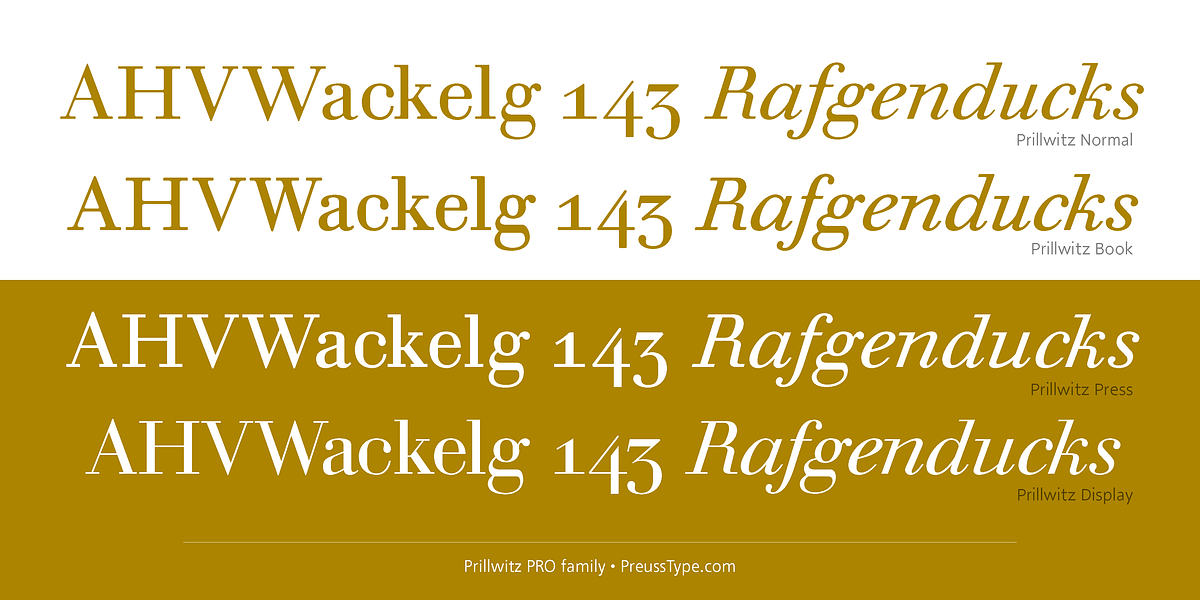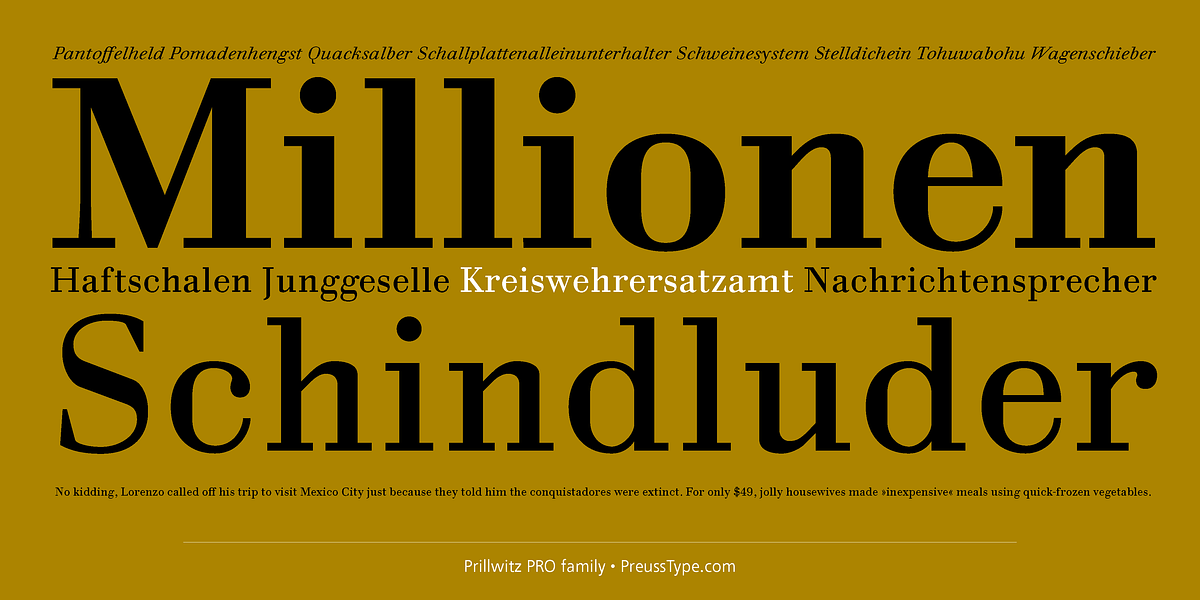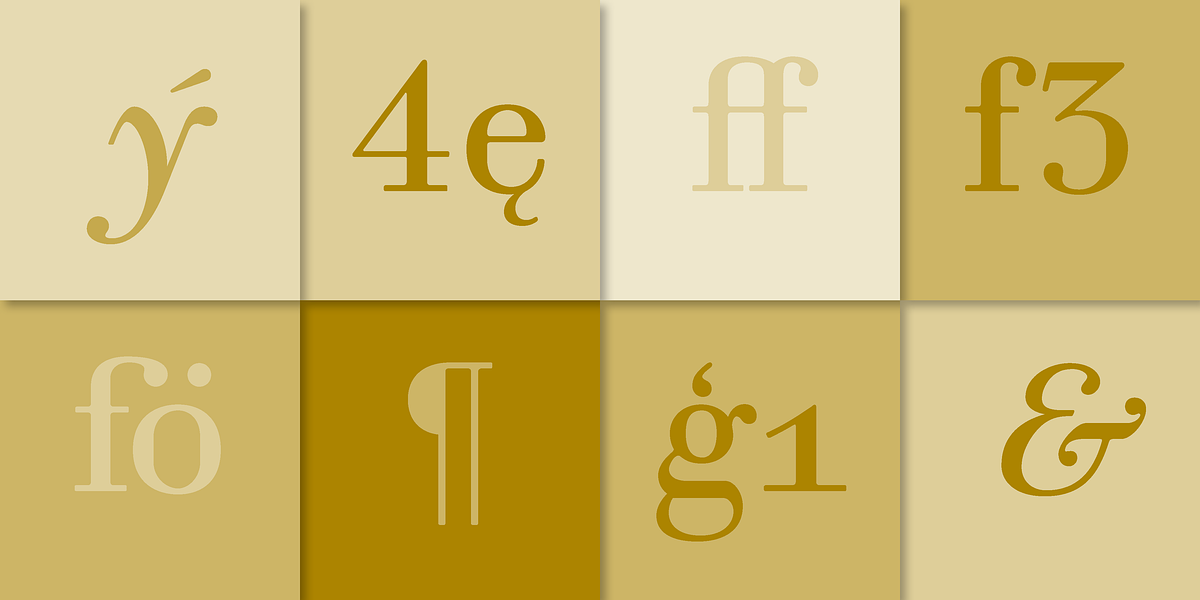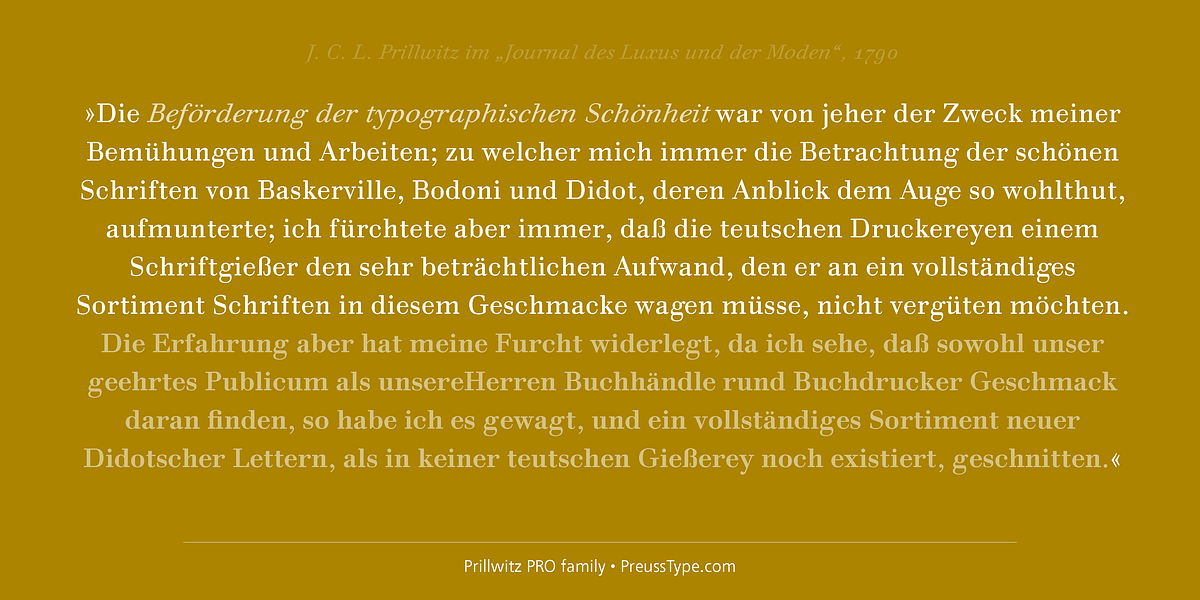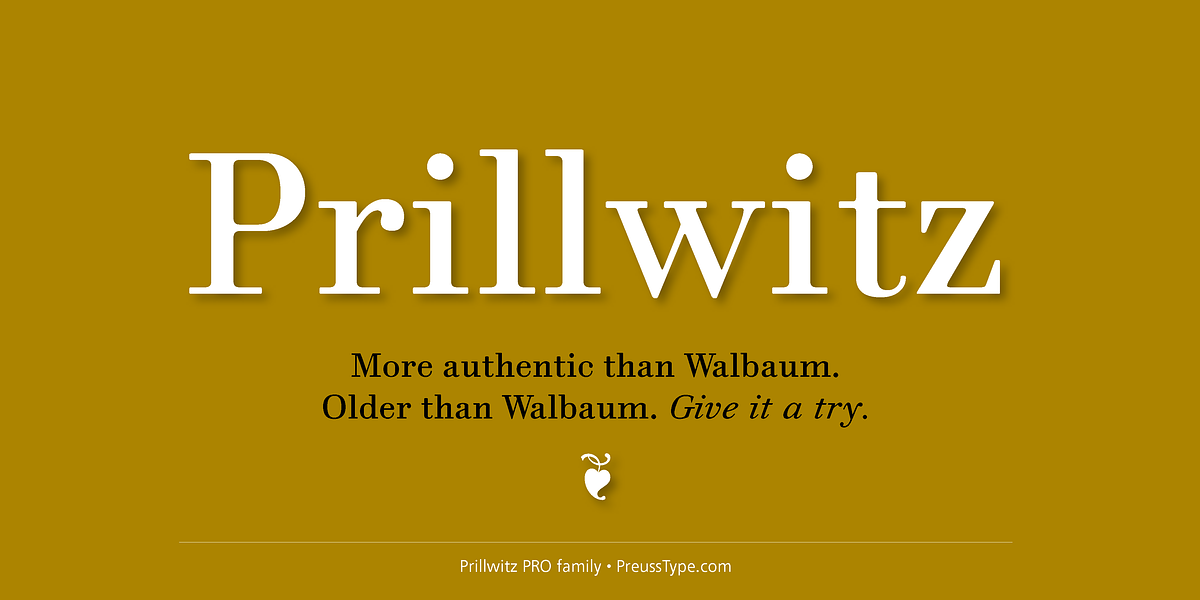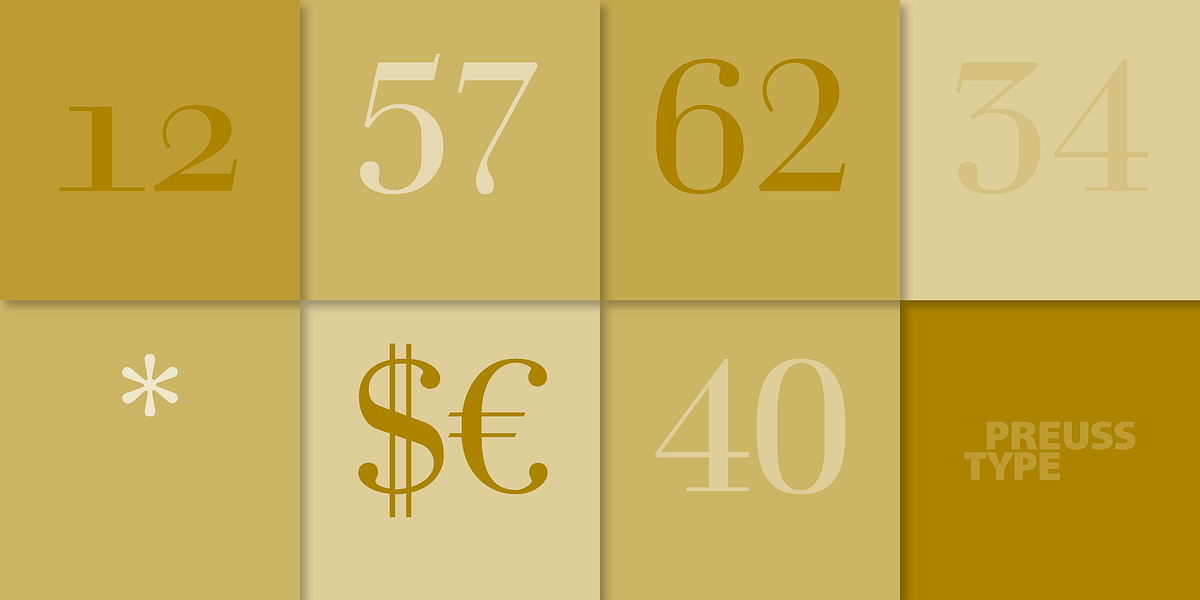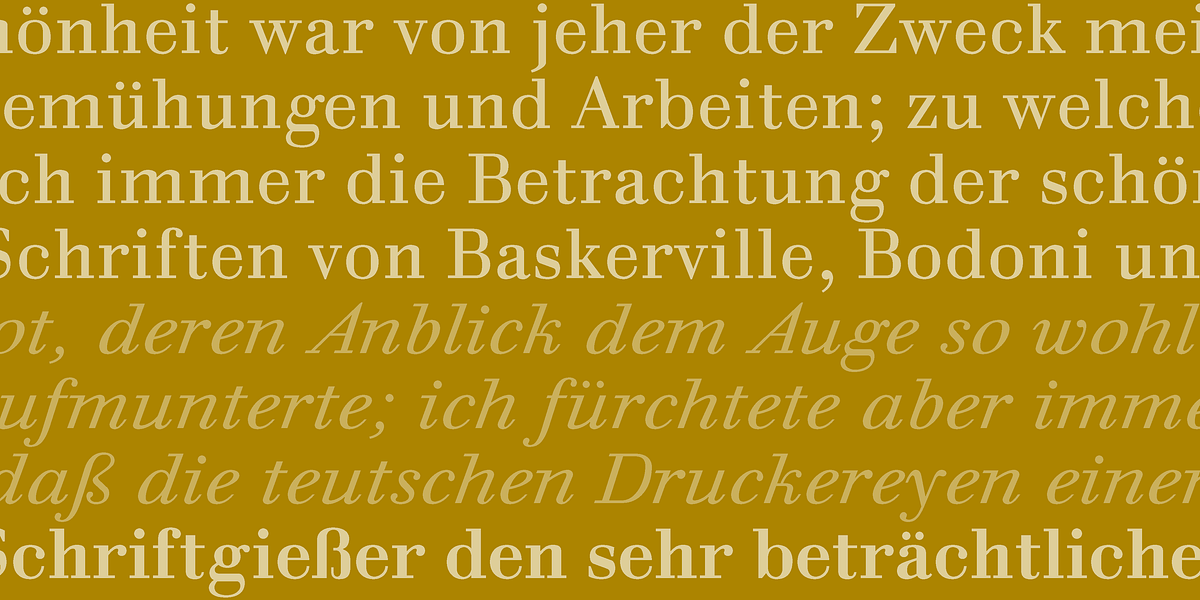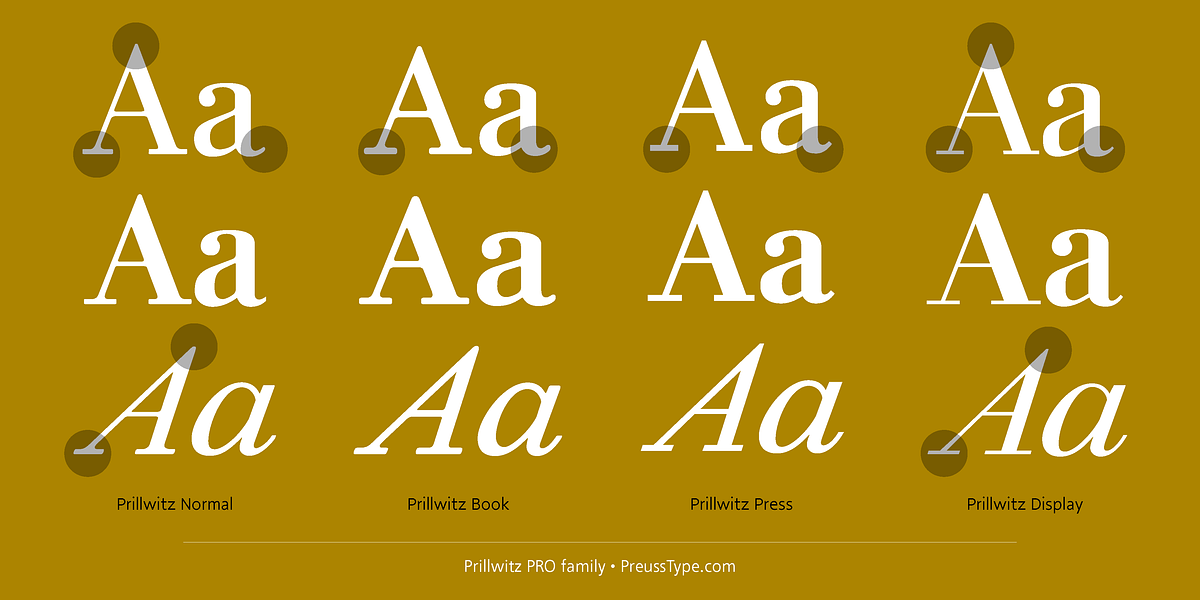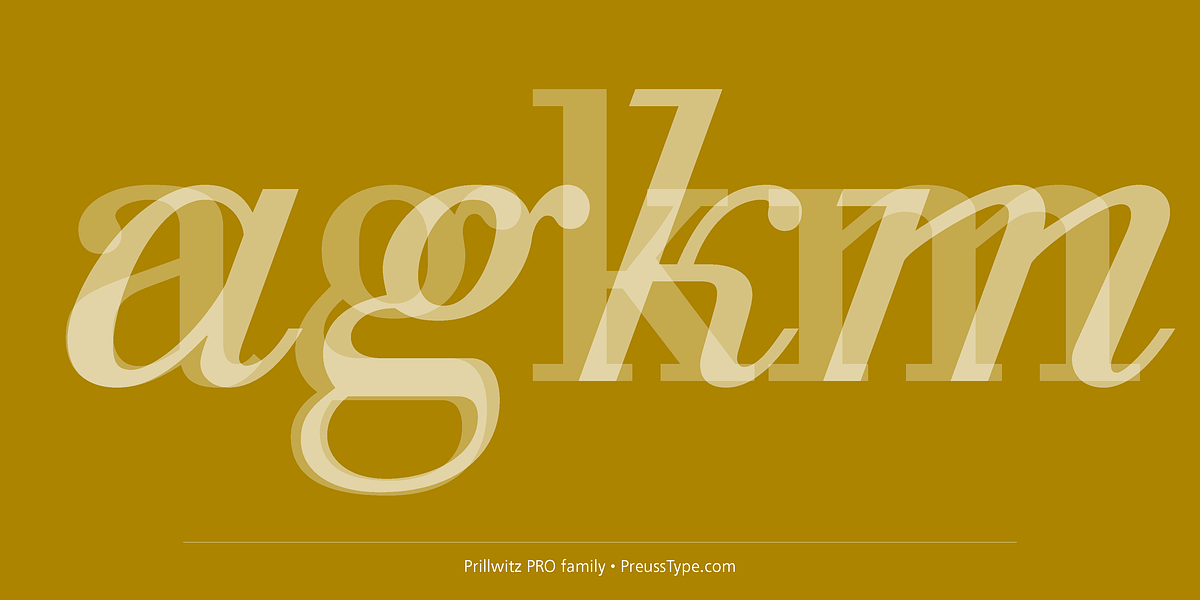
Prillwitz PRO
Prillwitz is a revival of the Didone style popularized by typographers like Didot and Bodoni. It stands out for its readability even at small sizes, making it suitable for long-form text. The font family includes Regular, Italic, and Bold weights, each available in Normal, Book, and Display optical sizes optimized for different applications.